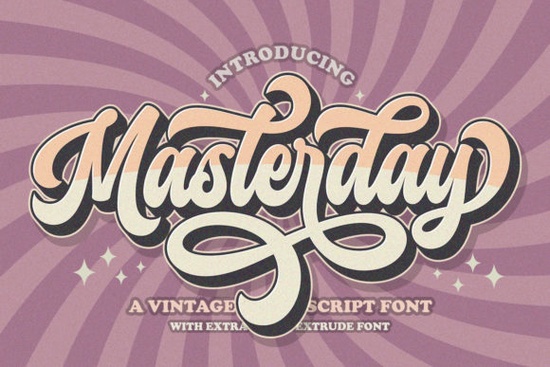
If you’ve been searching for a handwritten font with personality and flair, Masterday Font might be exactly what your next project needs. It’s got that retro charm the kind that feels both nostalgic and fresh making it perfect for logos, quotes, packaging, or even wedding invitations. What really sets it apart is how easy it is to use: every swash, alternate, and special character is accessible right out of the box thanks to PUA encoding. No digging through hidden glyphs or installing extra files.
You don’t need to be a pro designer to make something beautiful with Masterday. Whether you’re running a small Etsy shop, designing social media graphics, or just personalizing gifts for friends, this font adapts well across different styles. Pair it with clean sans-serifs for contrast, or go full vintage by combining it with textured backgrounds and muted tones.
What makes Masterday different from other script fonts?
Most handwritten fonts look great in headlines but fall short when you need consistency or variety. Masterday avoids that pitfall. The letterforms have enough variation to feel natural like real handwriting but stay legible even at smaller sizes. And because it’s PUA encoded, you can toggle between standard characters and decorative alternates without switching fonts or layers.
Compare it to something like Peach Club, which leans more playful and bouncy, or Country Kitchen, which gives off cozy farmhouse vibes. Masterday sits comfortably in the middle stylish without being overly ornate, retro without feeling dated.
Who should consider using Masterday Font?
- Print-on-demand sellers Use it on mugs, tote bags, or T-shirts where personality matters more than corporate polish.
- Wedding stationery designers Its elegant curves work beautifully for save-the-dates, menus, or place cards.
- Small business owners Perfect for boutique branding, café chalkboards, or product labels that want to stand out gently.
- Crafters and hobbyists If you’re into scrapbooking, vinyl cutting, or hand-lettered signs, this font translates well to physical projects too.
It also plays nicely with other Creative Fabrica favorites. Try layering it over the subtle elegance of Background Signature for depth, or let it shine solo next to minimal layouts. For California-themed designs, pairing it with California adds regional flavor without clashing.
How do I access all those fancy swashes and alternates?
Since Masterday is PUA encoded, most modern design tools (like Adobe Illustrator, Canva, Affinity Designer, or even Silhouette Studio) will recognize the extended character set automatically. Just open your glyph panel or character map, and you’ll see options beyond the basic alphabet think looping tails, underlines, and stylistic caps.
If you’re new to PUA fonts, here’s a quick tip: type out your text first using the regular characters, then go back and replace specific letters with alternates for visual interest. Don’t overdo it one or two swapped glyphs per word usually does the trick.
For reference, you can check out how others are using Masterday in the Creative Fabrica gallery. Seeing real examples helps spark ideas you might not have considered.
One thing to note: if you’re planning large-scale production runs (think thousands of units), reach out to confirm there aren’t any restrictions. Most users won’t hit that threshold, but it’s smart to be sure.
Any similar fonts worth checking out?
Absolutely. If Masterday doesn’t quite fit your vibe, take a look at Hey Baby it’s got a flirtier, brush-pen energy. Or explore California again if you’re going for sun-drenched, laid-back typography. Each has its own rhythm and mood, so test them side-by-side before committing.
And remember, sometimes the best design comes from mixing fonts rather than relying on just one. A bold display font paired with Masterday’s flowing script can create balance and hierarchy effortlessly.
Before you download Masterday, here’s a quick checklist:
- Check your software Make sure your design tool supports OpenType features and PUA glyphs.
- Preview in context Type out your actual phrase or headline before buying some fonts look great alone but struggle in sentences.
Start simple. Pick one project maybe a quote graphic or a product mockup and build around Masterday. You’ll get a feel for its strengths fast, and likely find yourself reaching for it again and again.